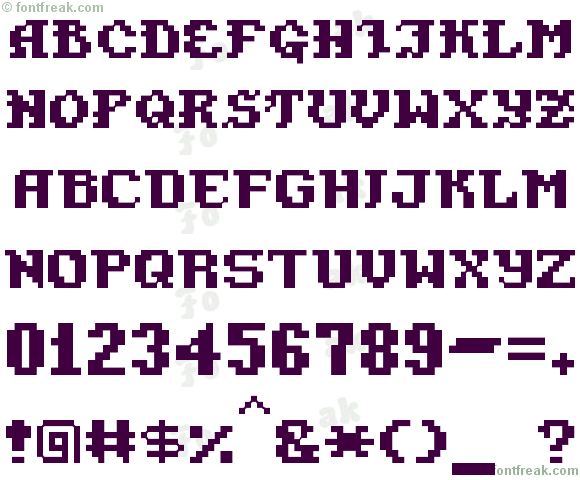
Gold Box
Gold Box by Neale Davidson is a distinctive display font that captures attention with its unique character and bold design. Released in 2012, this freeware typeface features a blocky, geometric style that evokes a sense of strength and creativity. The font showcases a medium stroke weight with minimal contrast, giving it a solid and unified appearance. The spacing is well-balanced, ensuring that each letter stands out while maintaining harmony with its neighbors. The decorative elements in Gold Box, characterized by its angular edges and squared-off terminals, add a modern touch that is both eye-catching and versatile.
This font is particularly suited for a variety of creative applications. It shines in contexts such as movie posters, where a strong visual impact is required to draw in viewers. Additionally, Gold Box is ideal for branding projects, making it an excellent choice for logos that need to convey a bold identity. Restaurant menus can also benefit from this font, as its unique style can enhance the overall atmosphere and theme of the dining experience. Graphic designers and content creators will find that Gold Box adds an inventive flair to social media graphics and promotional materials, making their work stand out in a crowded digital space.
Targeted primarily at graphic designers, small business owners, and content creators, Gold Box is a versatile tool for those looking to make a statement with their typography. Its freeware license allows for easy access, enabling users to download and implement it without restrictions. The Gold Box font free download offers an opportunity to leverage a powerful typeface that stands out in any project, making it a valuable addition to any designer’s toolkit. With its unique visual characteristics and broad applicability, Gold Box truly distinguishes itself in the realm of modern typography.